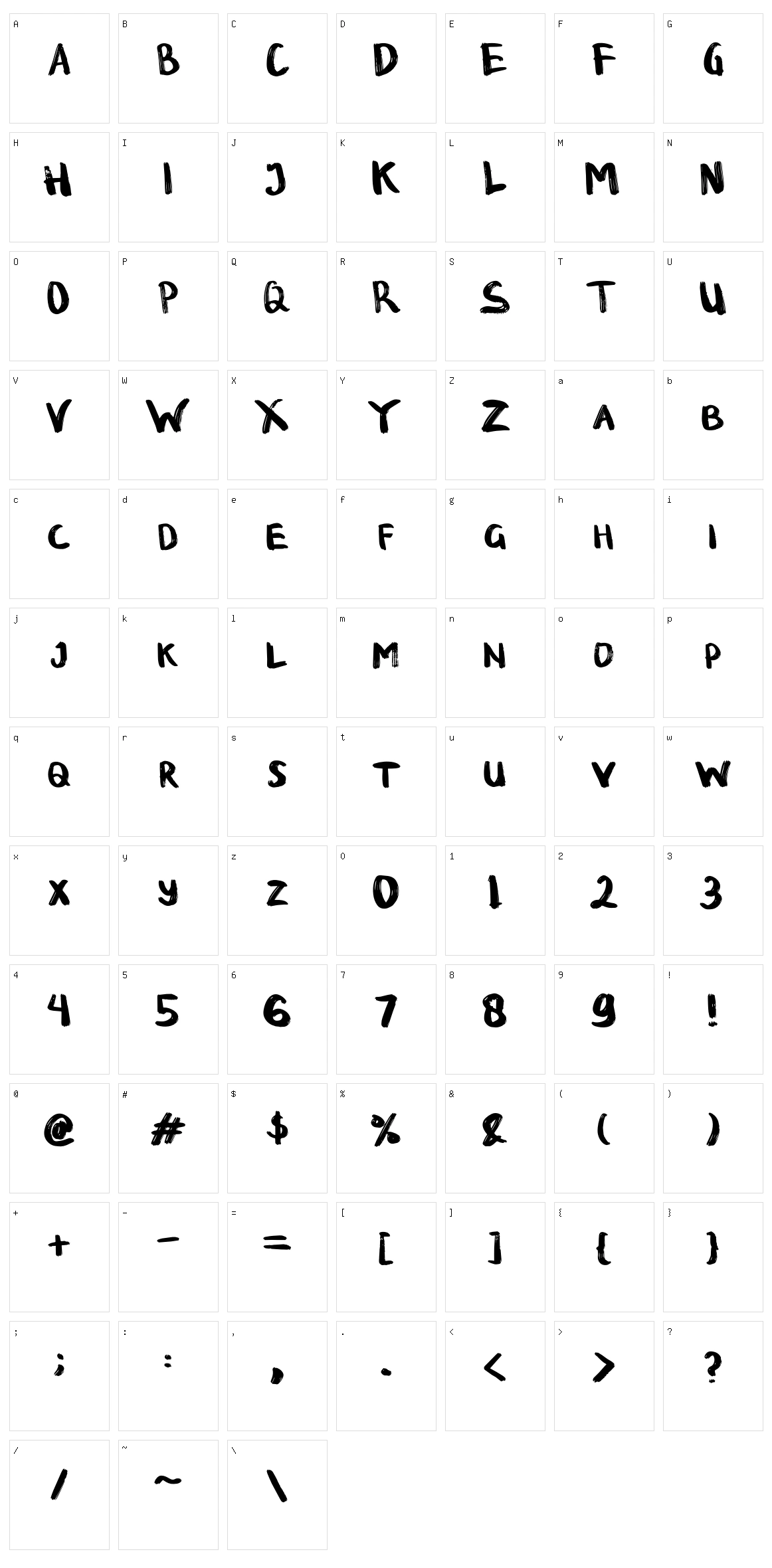
Graceland is a handbrush font with a great personality. It will elevate a wide range of design projects to the highest level, be it branding, headings, wedding designs, invitations, signatures, logos, labels, and much more!